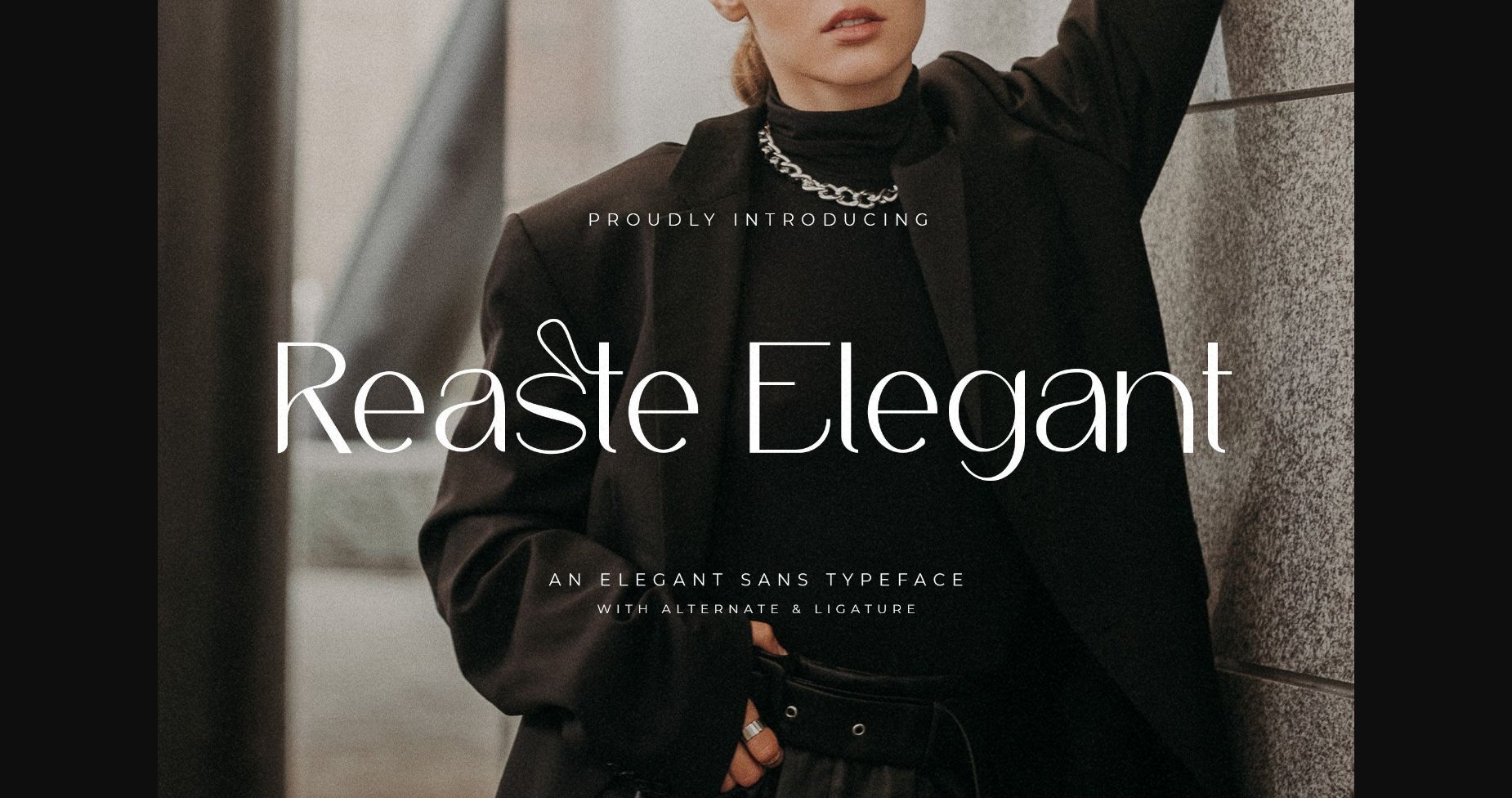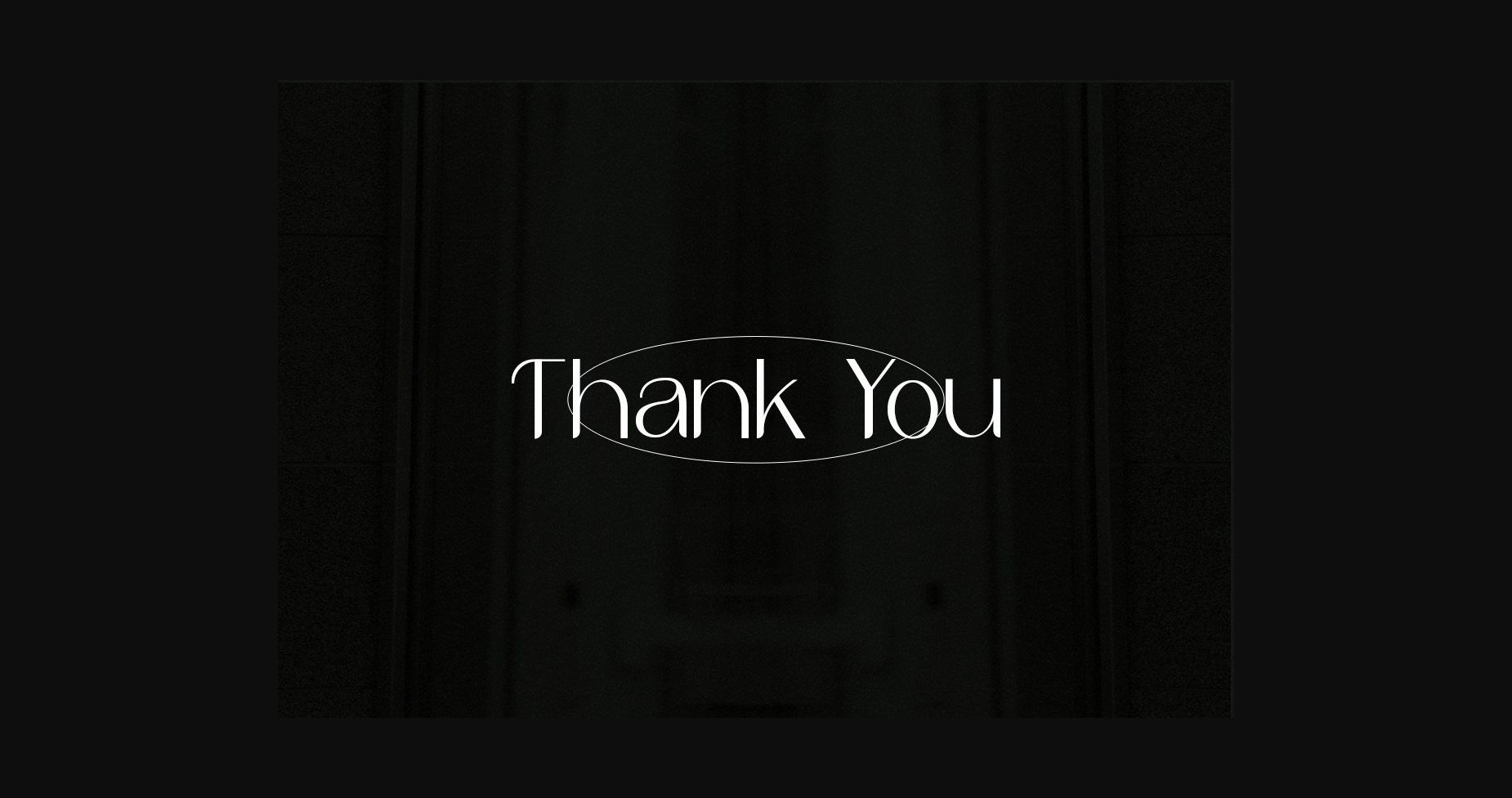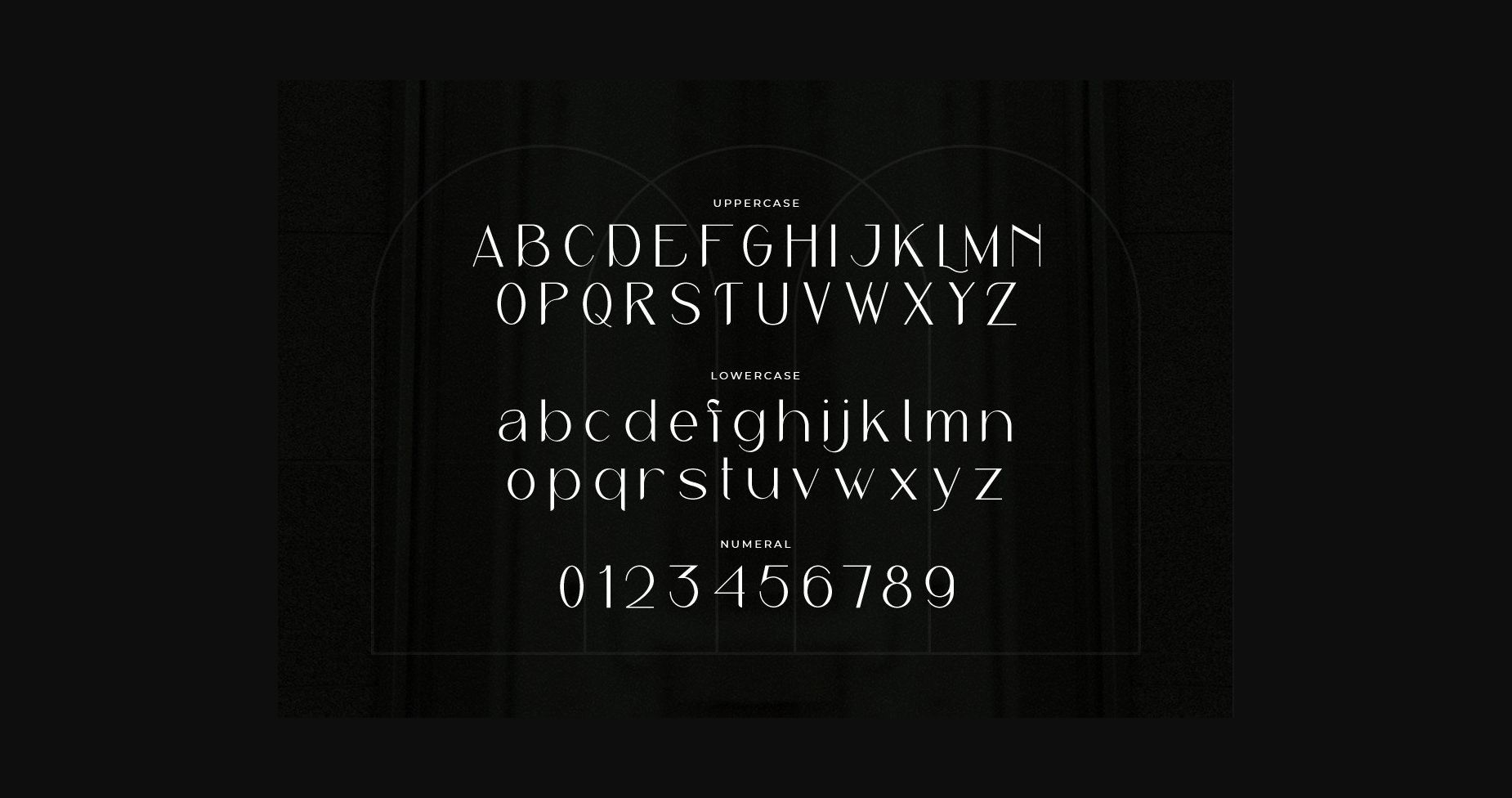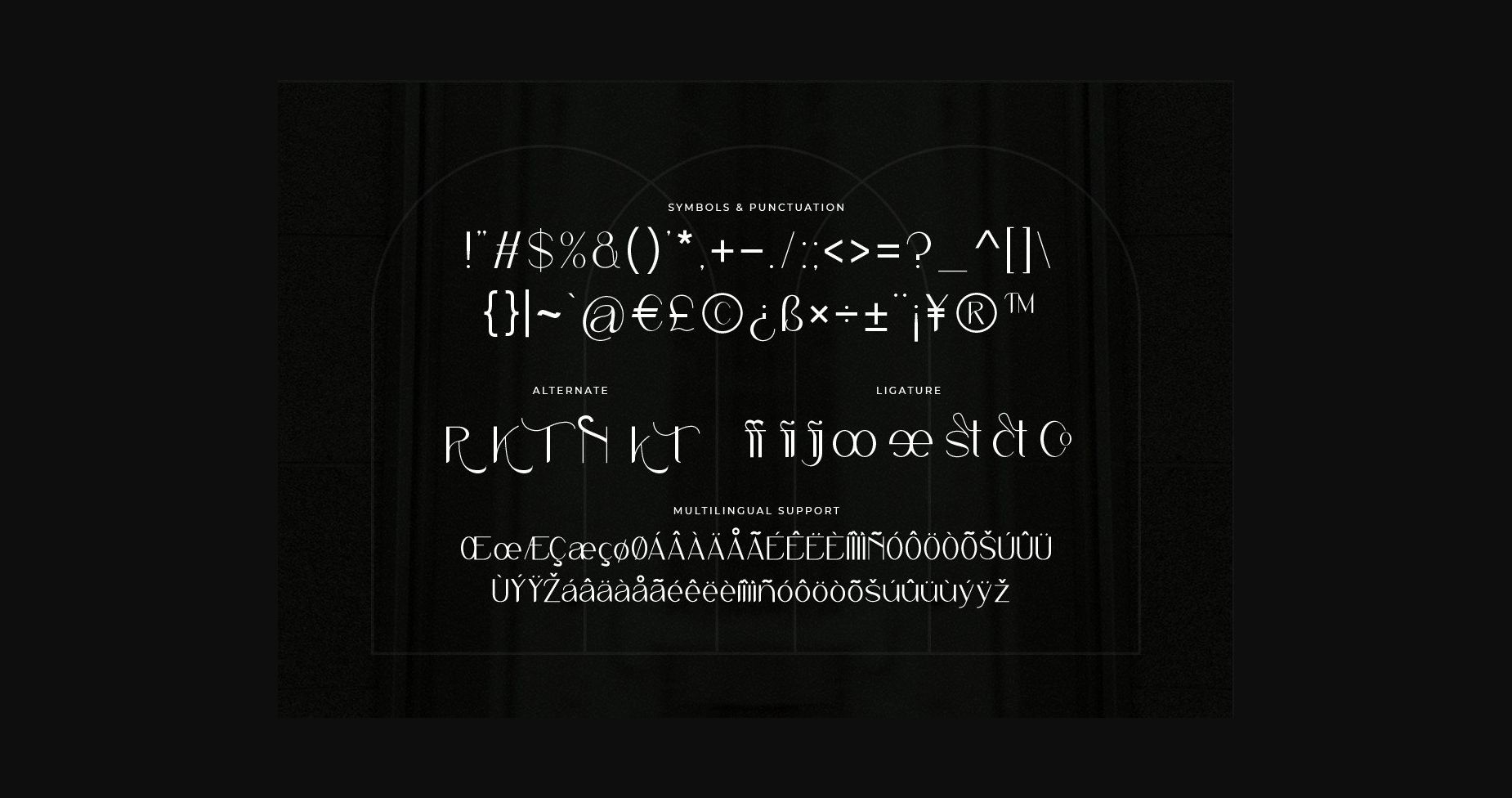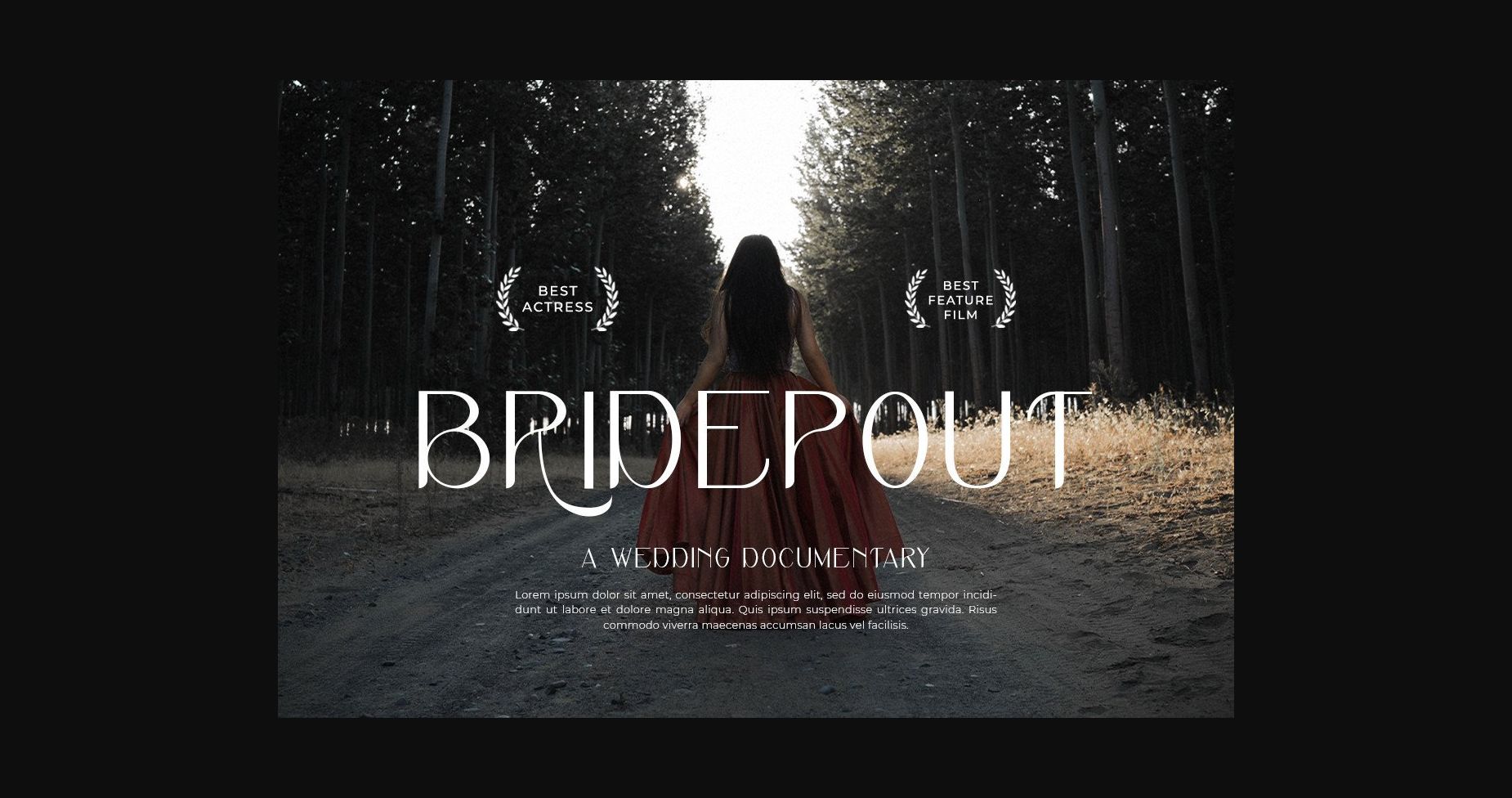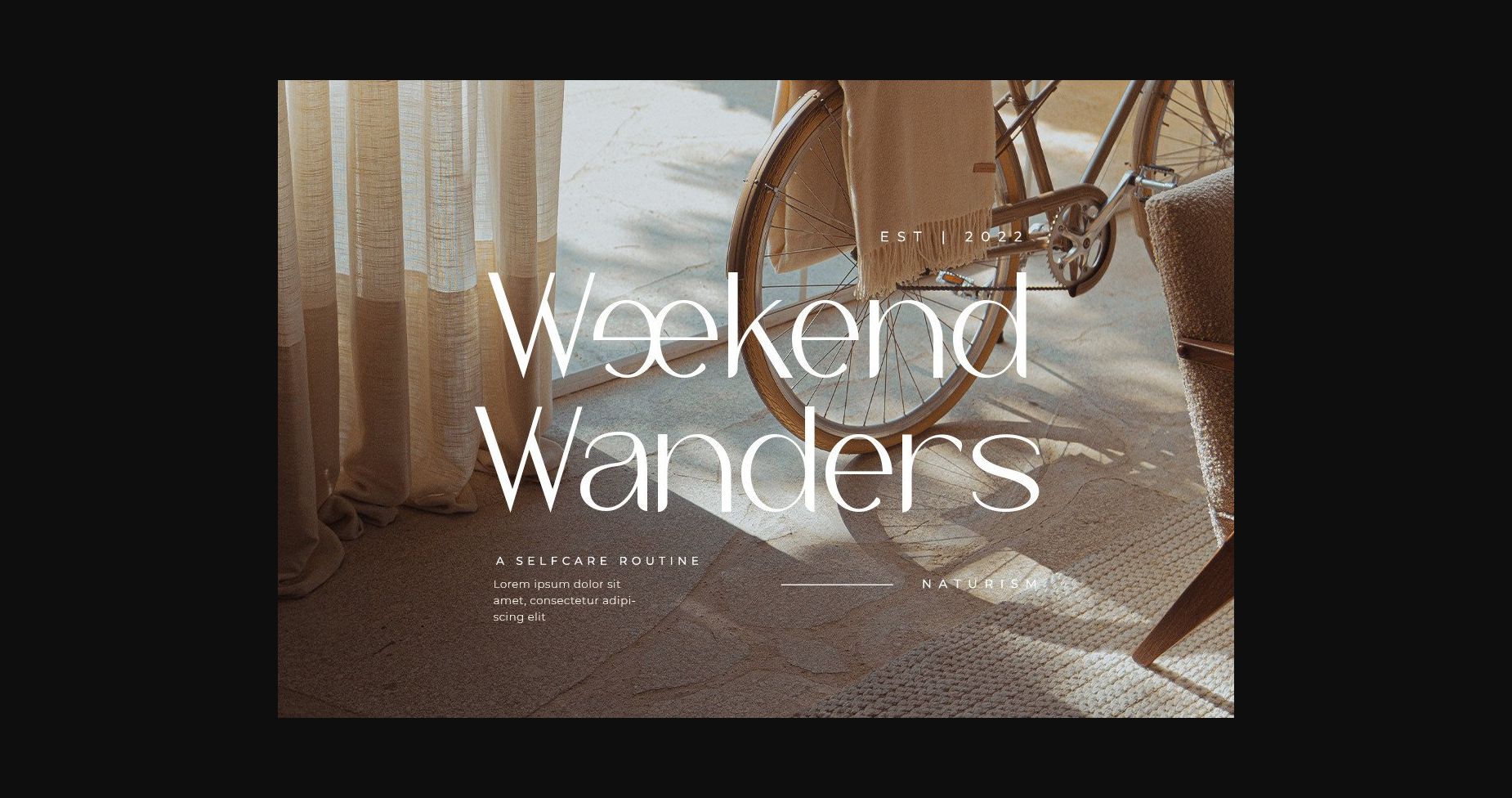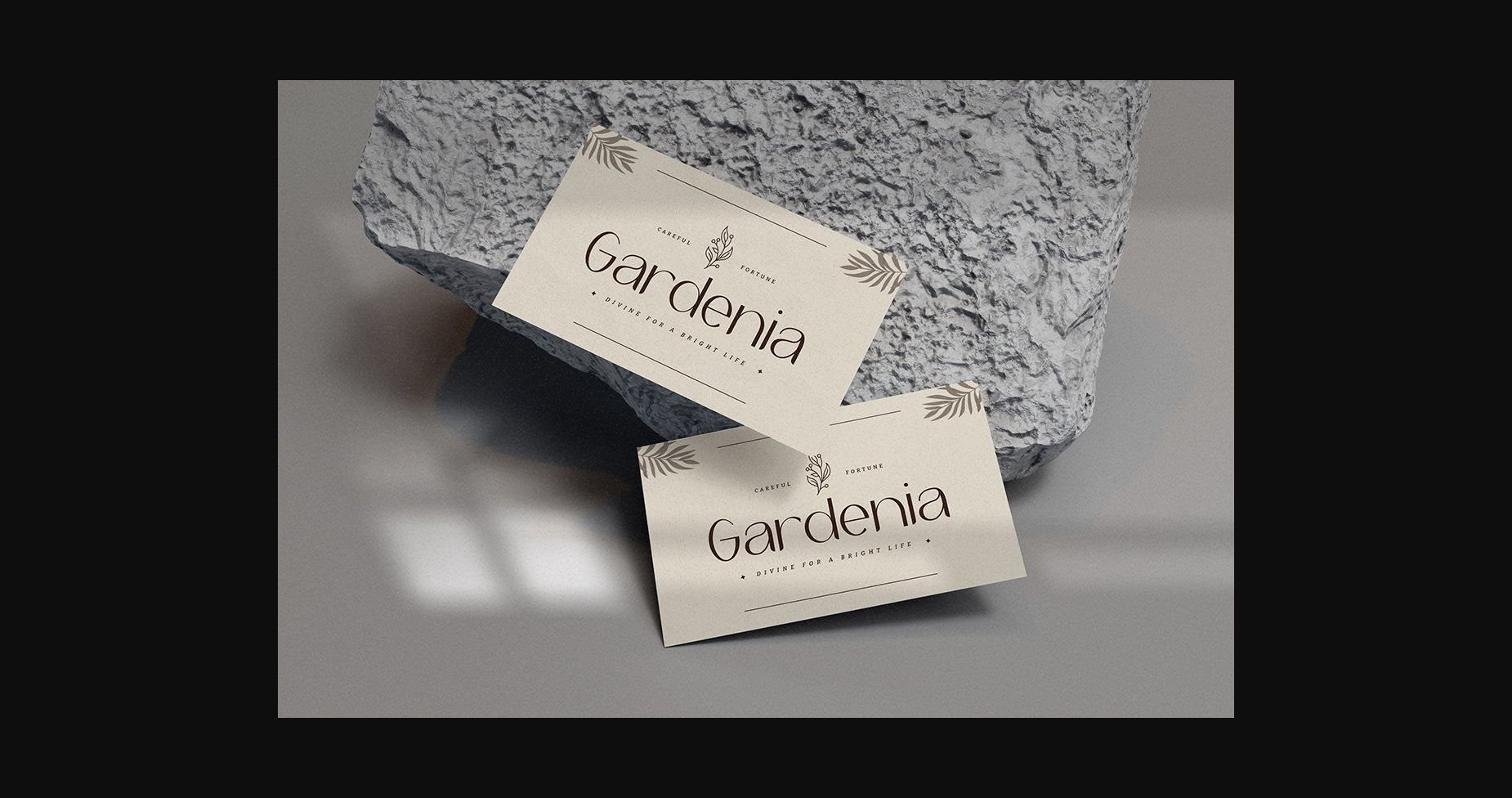
About Reaste Elegant Font
Reaste Elegant is an elegant and modern sans serif font.
No matter the topic, this font will be an incredible asset to your fonts library, as it has the potential to elevate any creation.